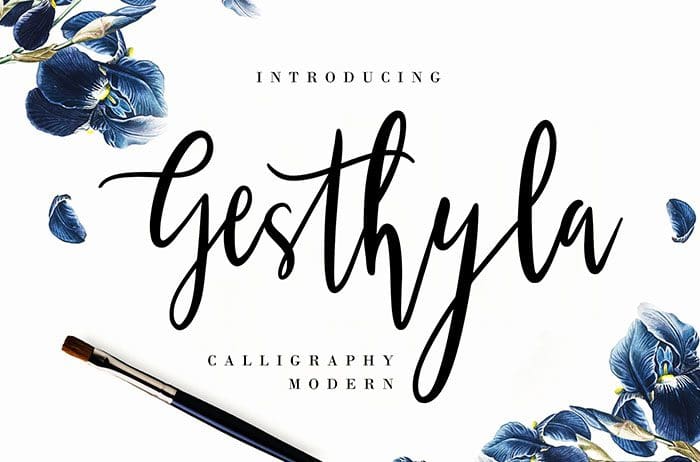
Gesthyla Calligraphy Font
Gesthyla is a calligraphy font looks elegant, classy, and natural move. Perfect for branding projects, logo, wedding designs, social media posts, and more. Thanks to Creatype Studio for sharing this font! Take a look at this portfolio for more of his stunning fonts.